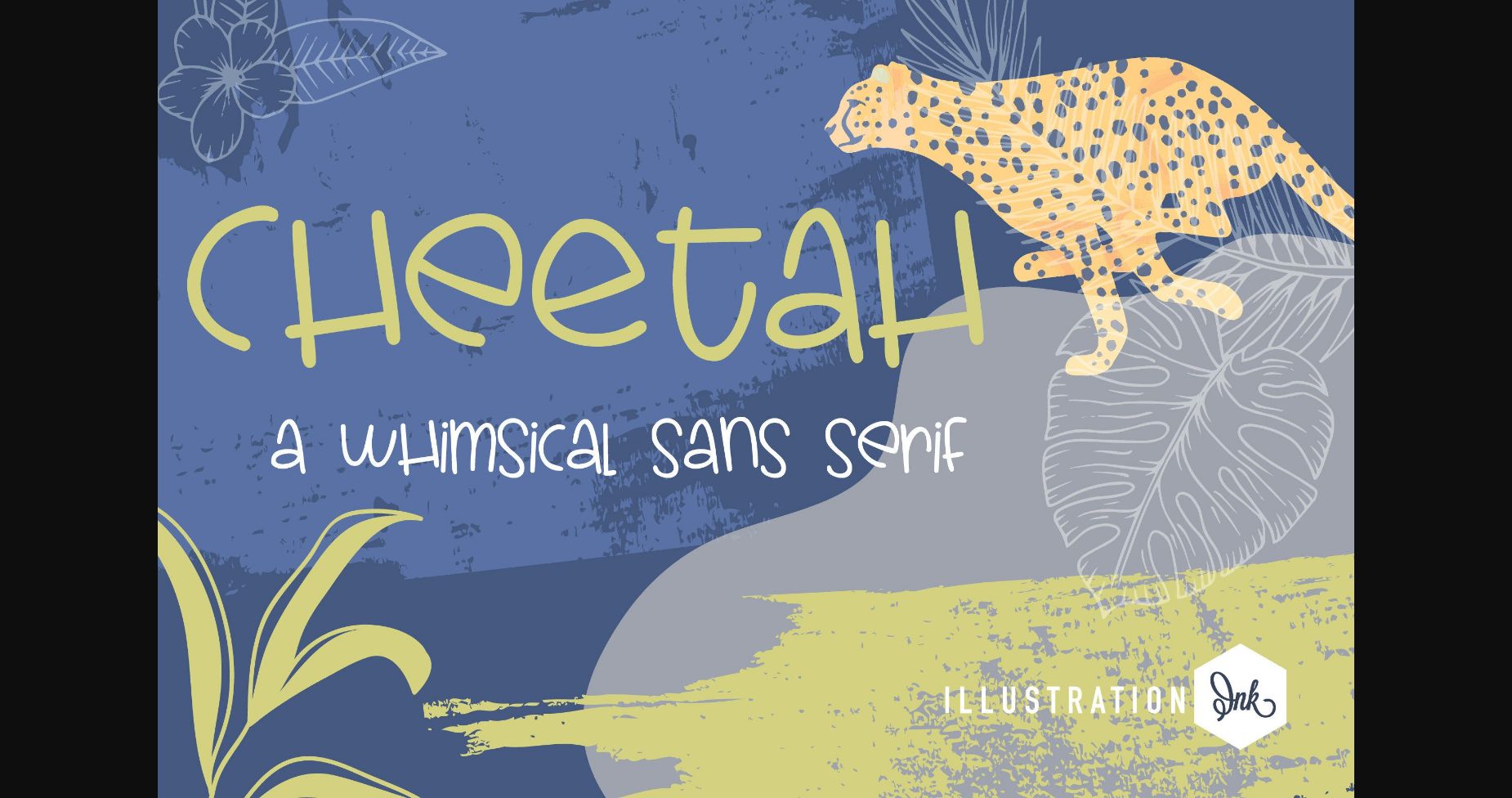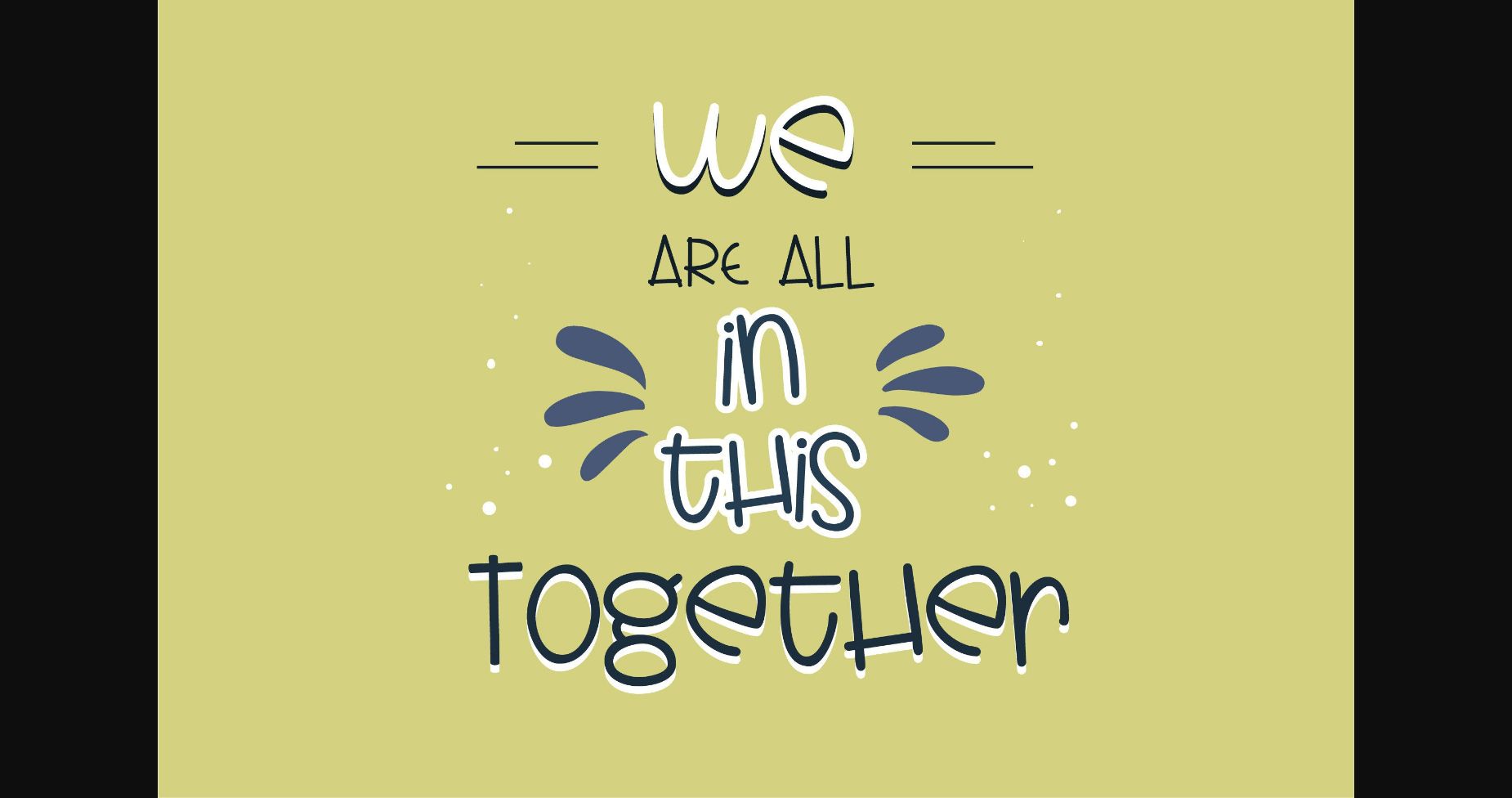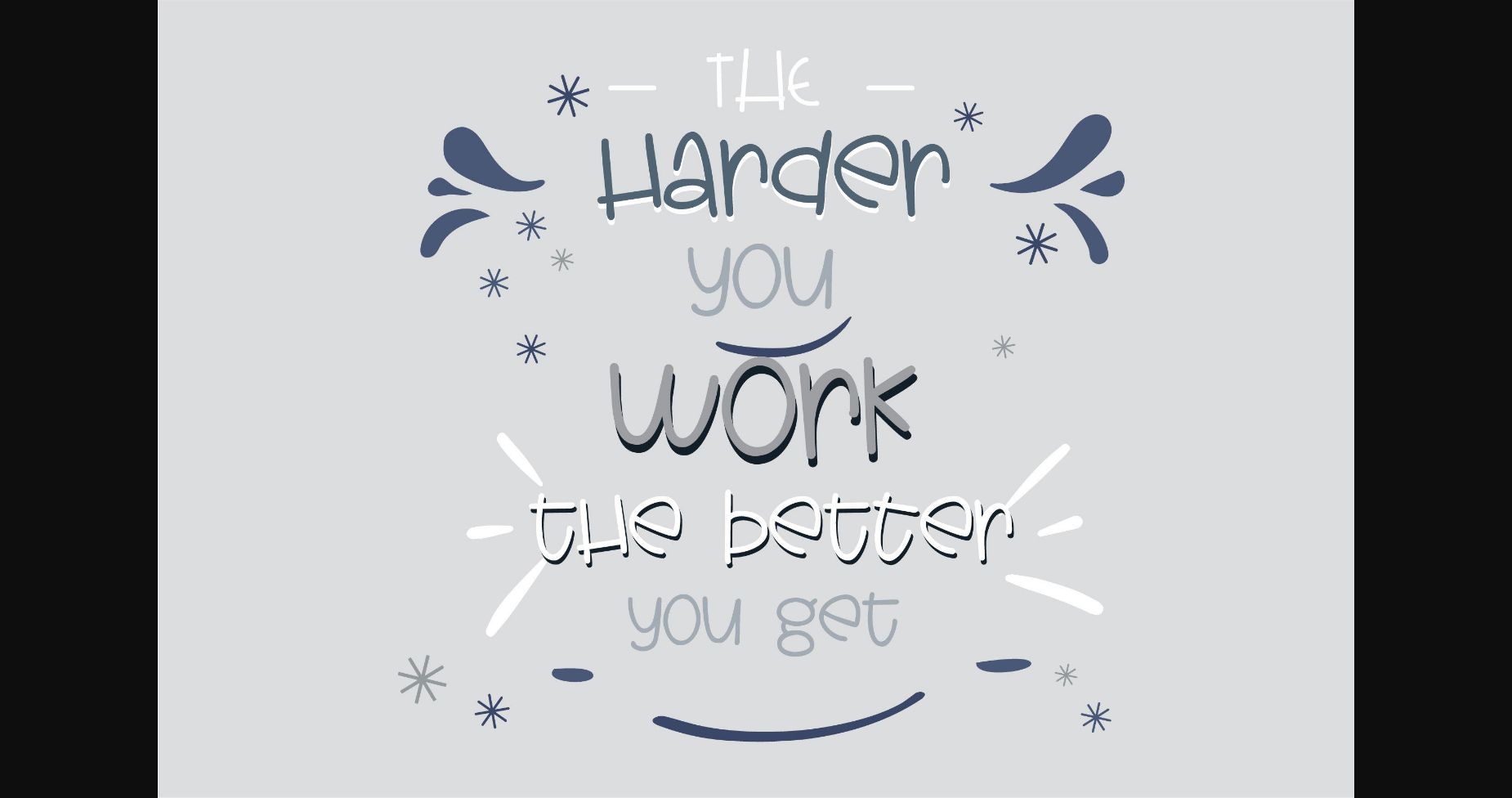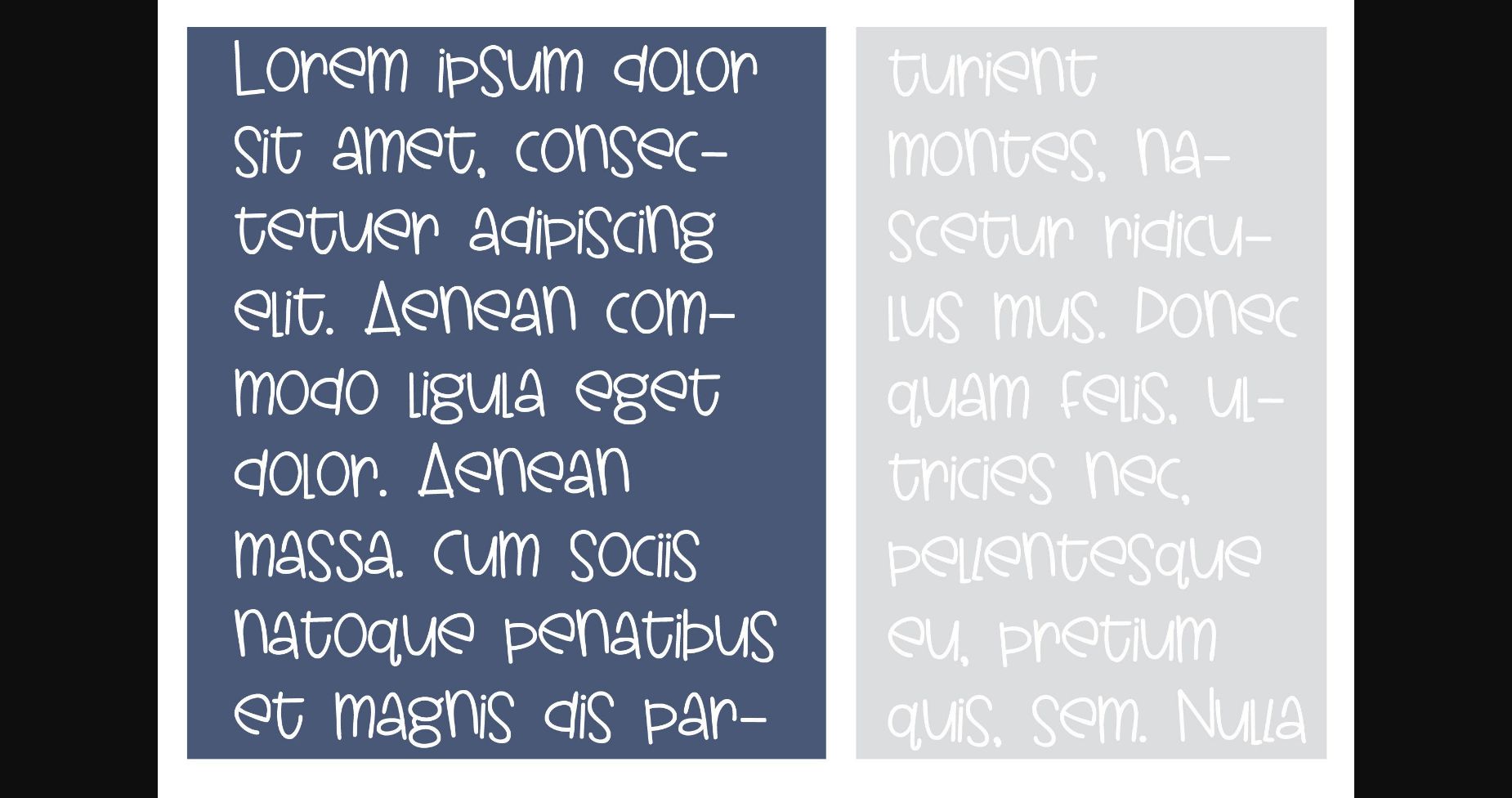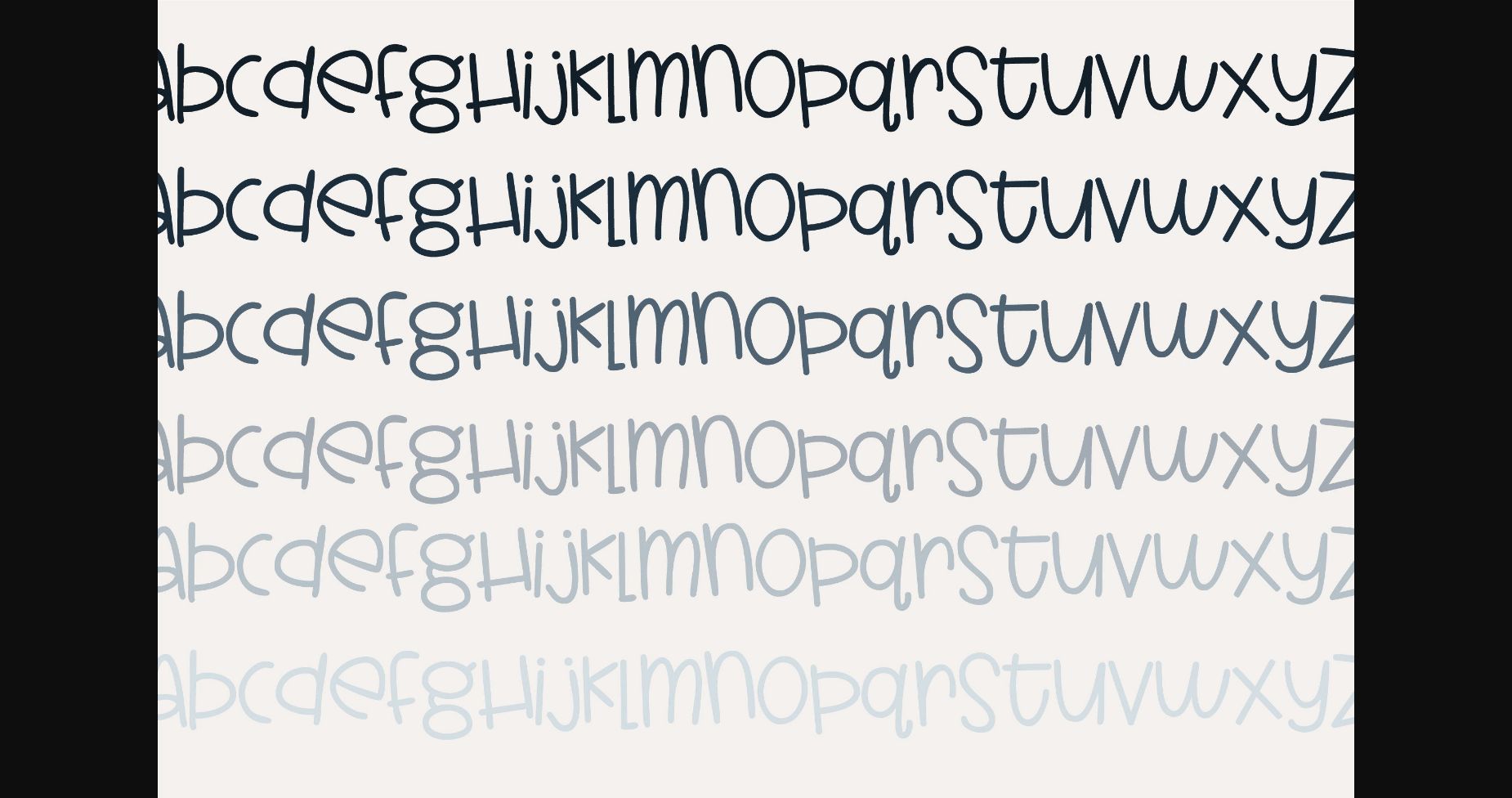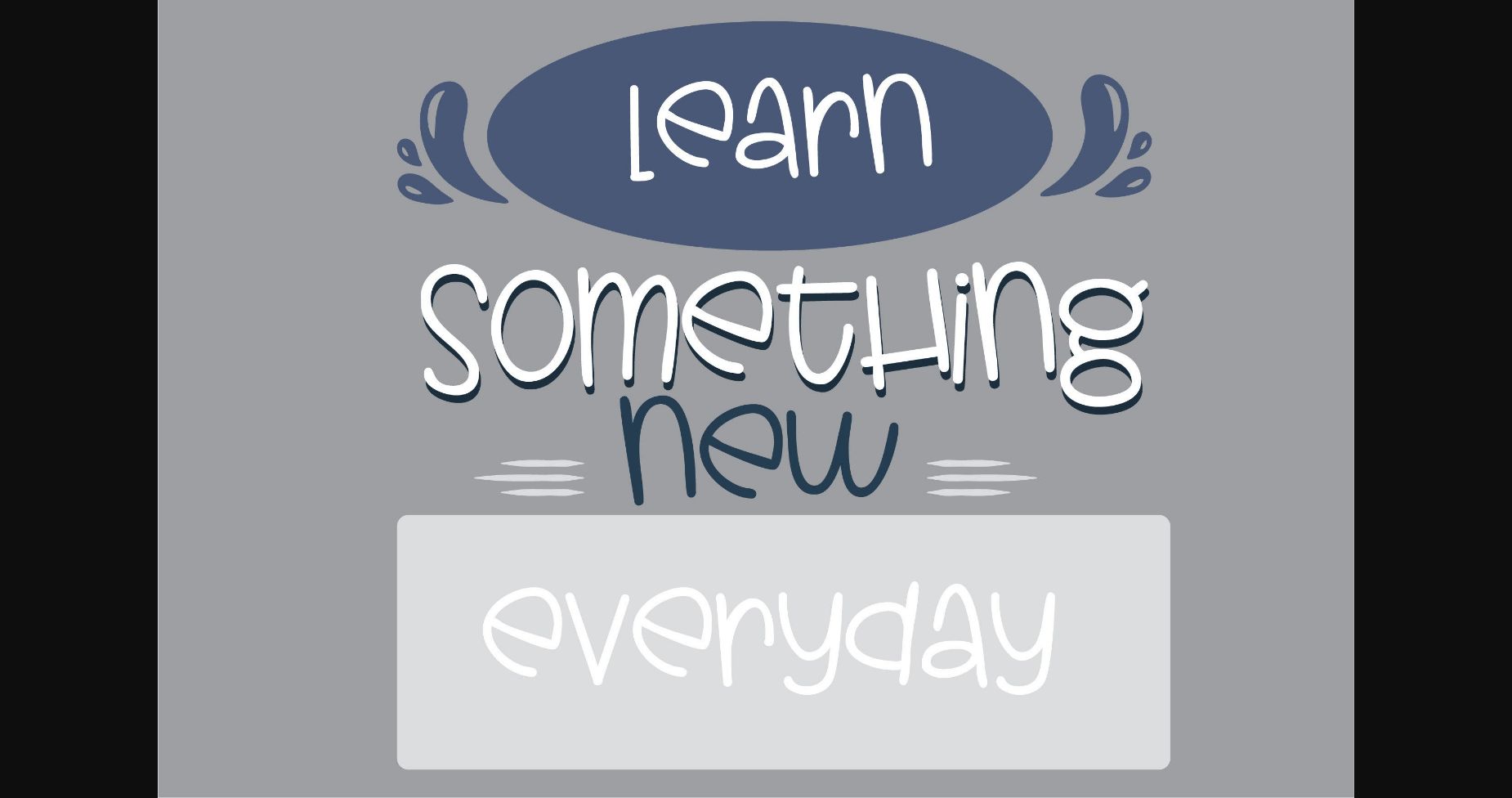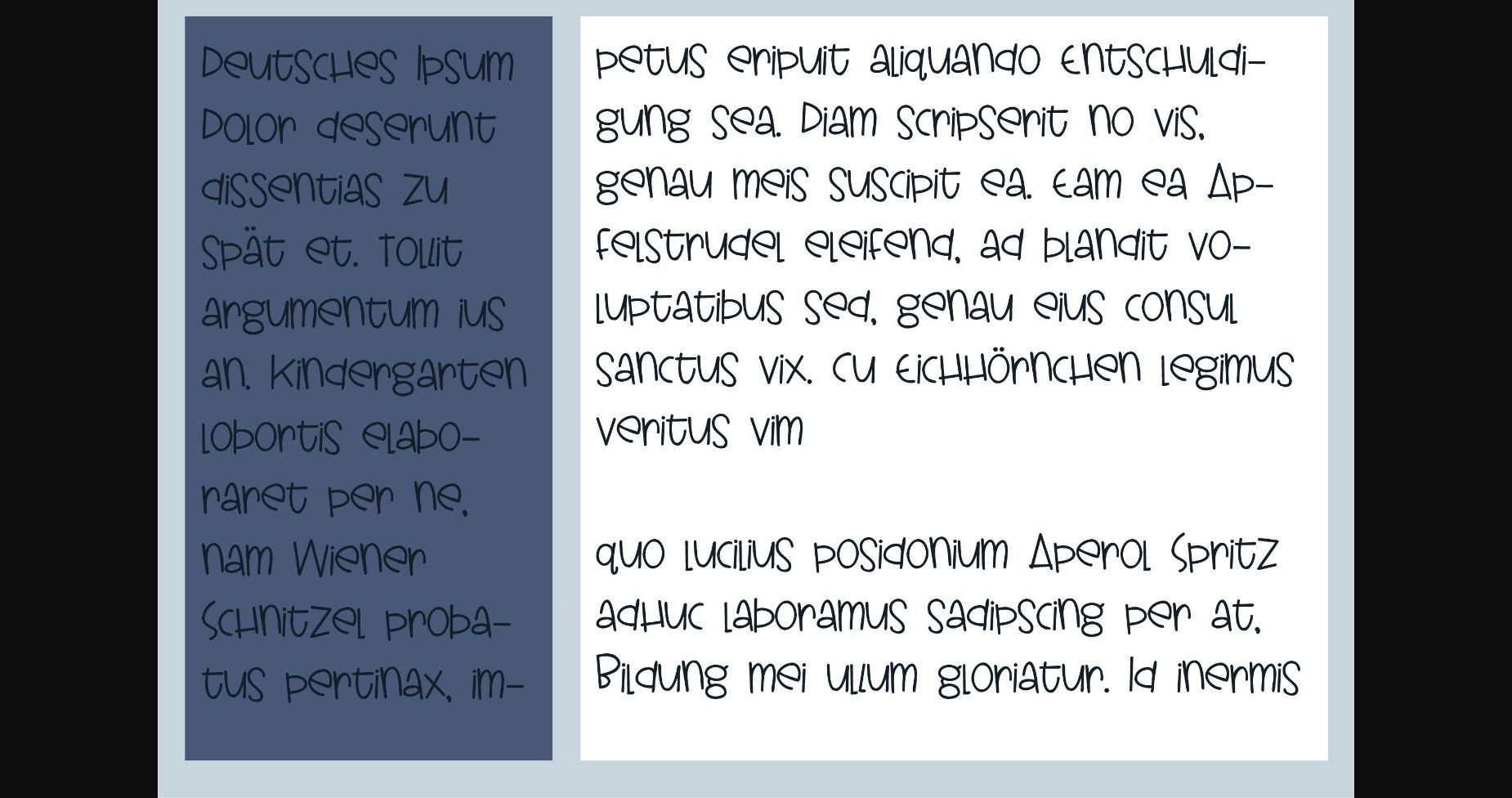
HomeSans Serif FontsCheetah Font Sans Serif Fonts Cheetah Font FacebookXPinterestWhatsApp 1 of 9 ... Cheetah Font Poster 2... Cheetah Font Poster 3... Cheetah Font Poster 4... Cheetah Font Poster 5... Cheetah Font Poster 6... Cheetah Font Poster 7... Cheetah Font Poster 8... Cheetah Font Poster 9... About Cheetah Font This simple hand-written sans serif is a casual and very youthful print with no descenders. Try it on any project that needs a playful look! DOWNLOAD NOW People also explored Gasoline Original Font Alayna Hughes Font Wednesday Font Miracel Garden Font Grobac Font Diesel Harmony Font Allodya Font Mauvaise Foi Font 270 0 TagsCheetahCheetah Font Previous articleBreazer FontNext articleBuffoonery Font LEAVE A REPLY Cancel reply Comment: Please enter your comment! Name:* Please enter your name here Email:* You have entered an incorrect email address! Please enter your email address here Website: Save my name, email, and website in this browser for the next time I comment. Personal Use Free Pelmeshka Personal Use Free Read more about this font BD Console Personal Use Free Read more about this font Bonifaciy Personal Use Free Read more about this font Grillin Personal Use Free Read more about this font BLOG Fonts That Capture the Spirit of New York City New York City is more than just a place—it’s an experience, a rhythm, a visual language... Using Fonts in Digital Marketing: Tips to Strengthen Your Brand Identity Transform Your Website: Elevate Your Typography with 7 Best Web Font Generators Best Fonts for YouTube Videos: Make Your Thumbnails Stand Out